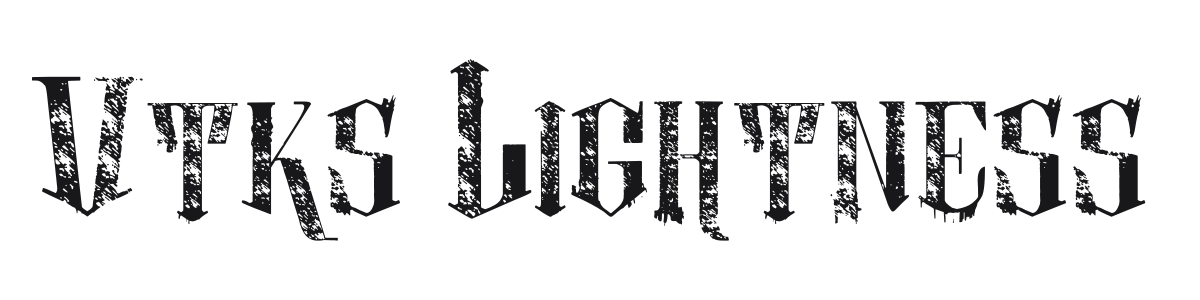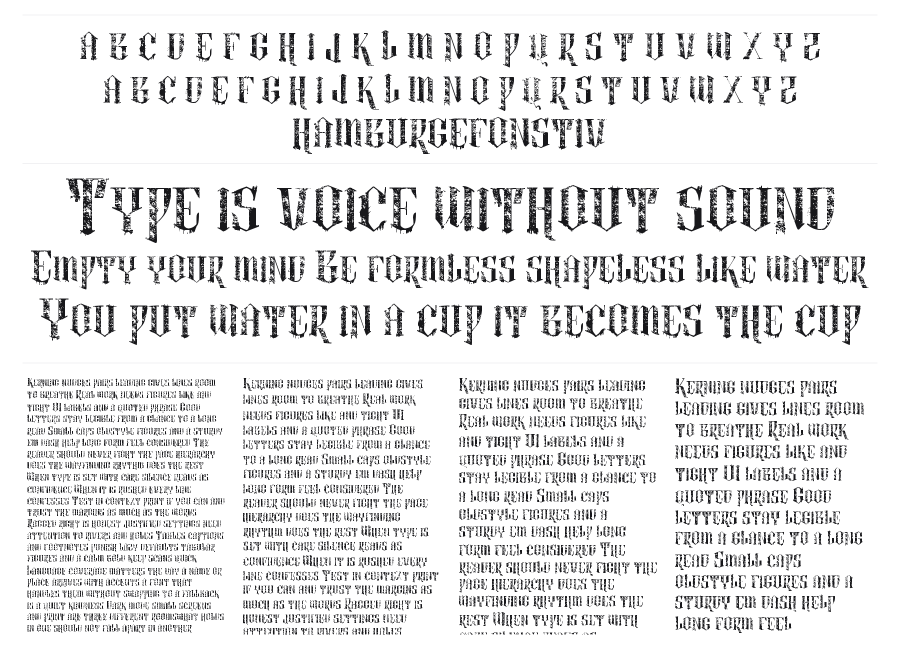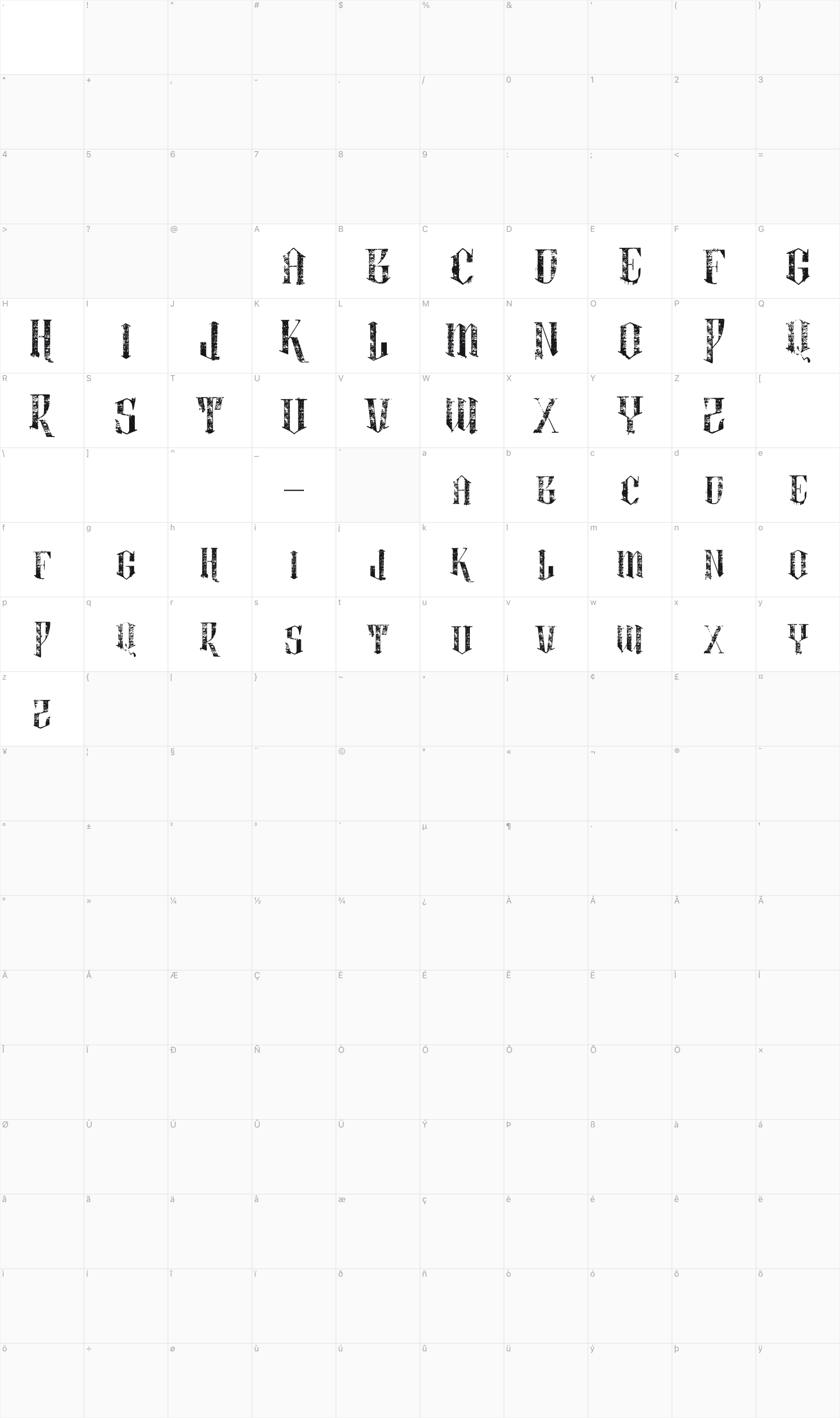
Vtks Lightness
Vtks Lightness is a gothic blackletter display face built on heavy condensed letterforms with an aggressive distressed texture covering every stroke. The eroded surface treatment gives it a raw, worn quality that sits comfortably in metal, horror, and underground aesthetics. Strong stems and angular diamond terminals remain legible beneath the grit.